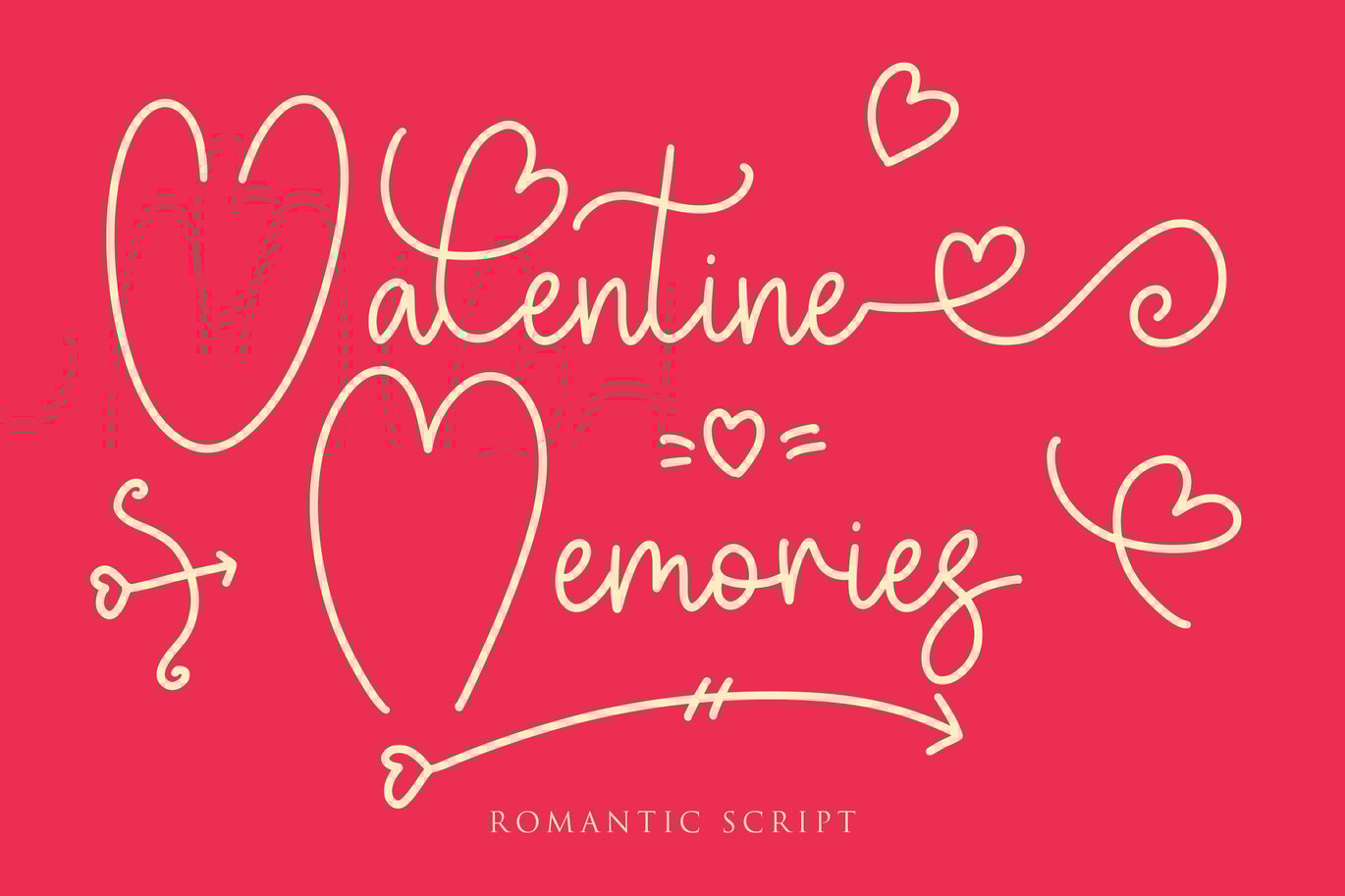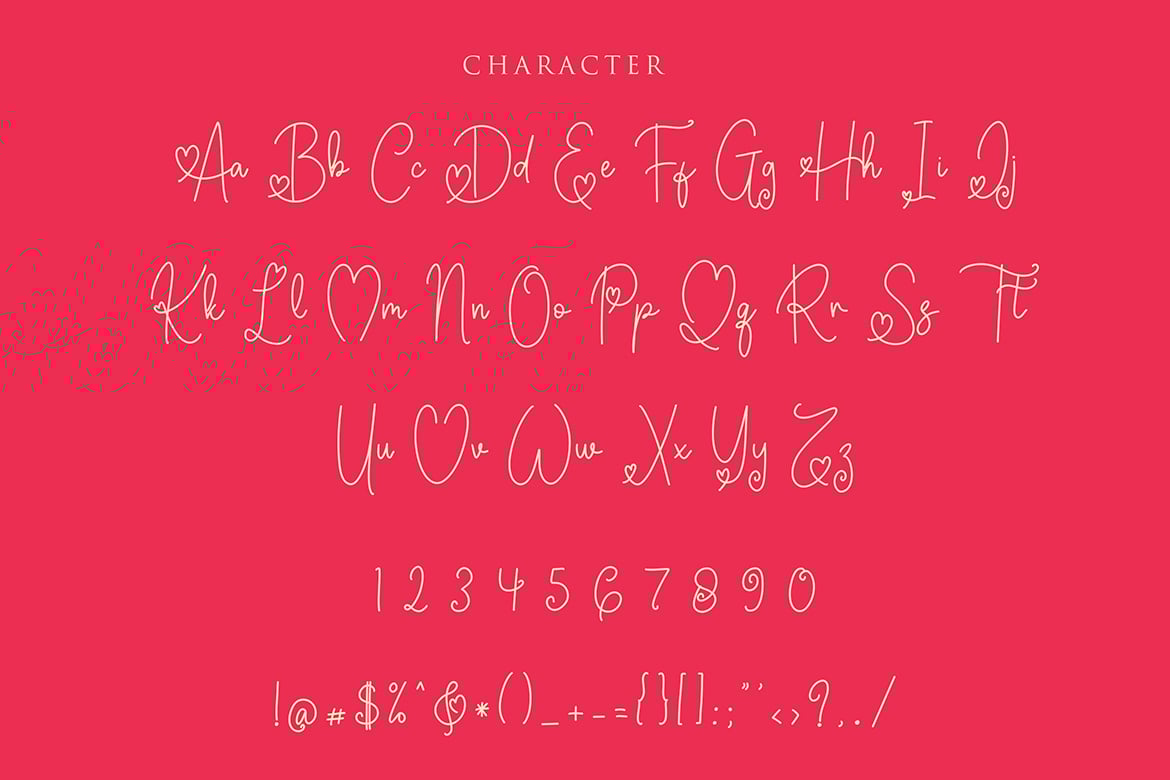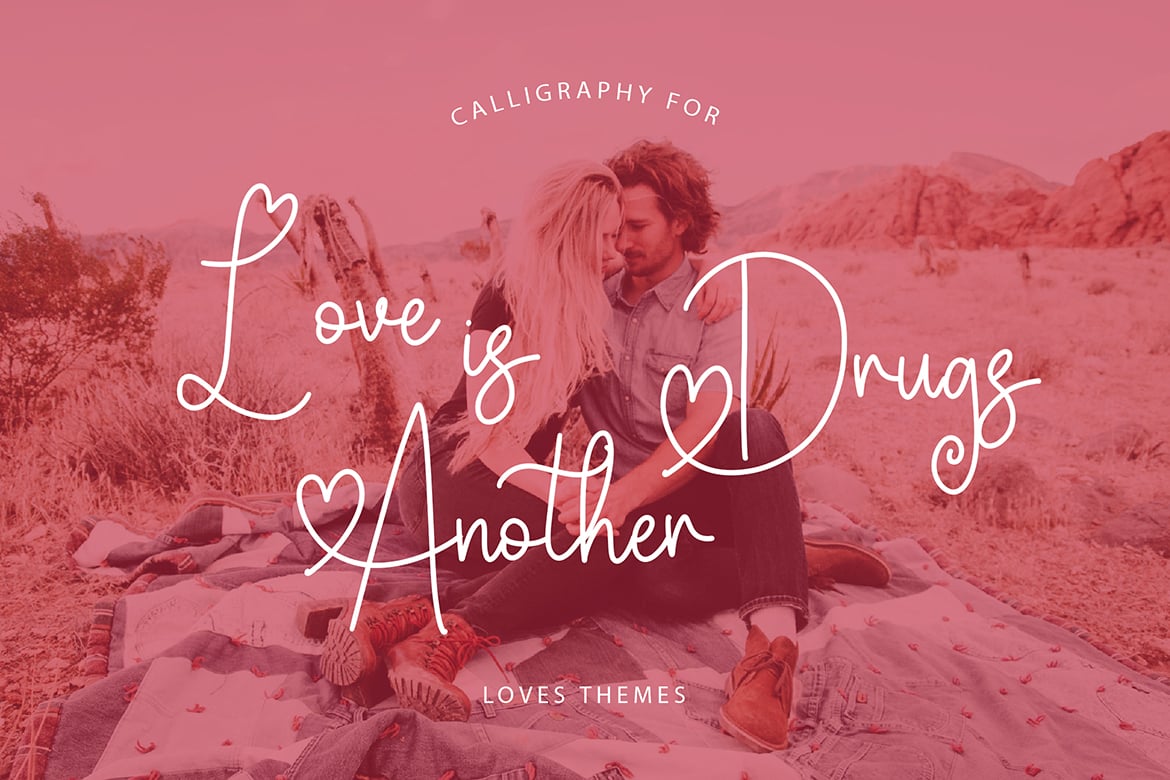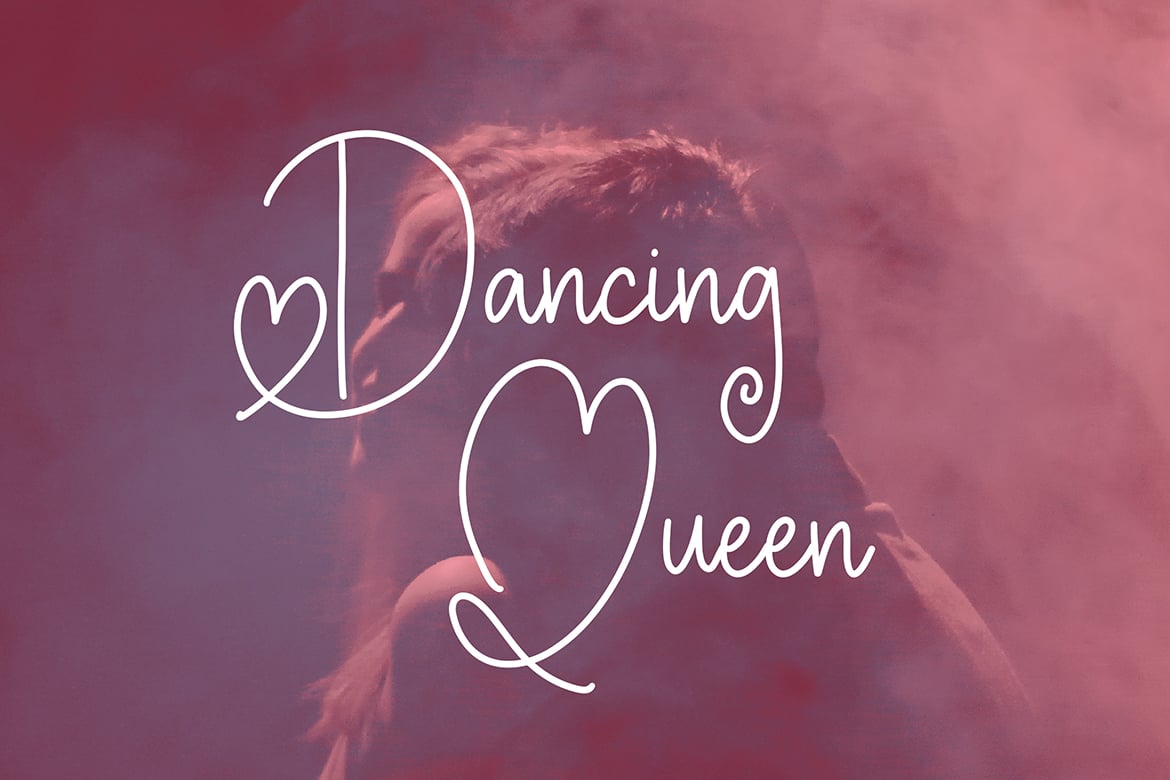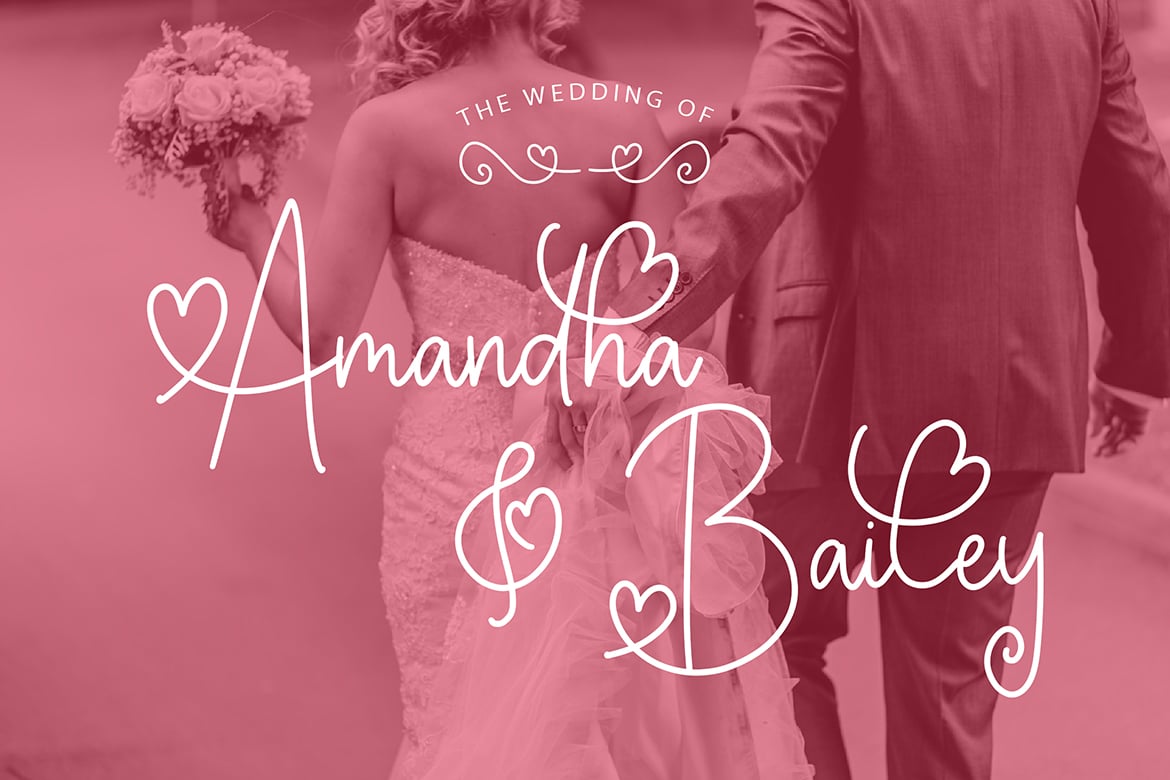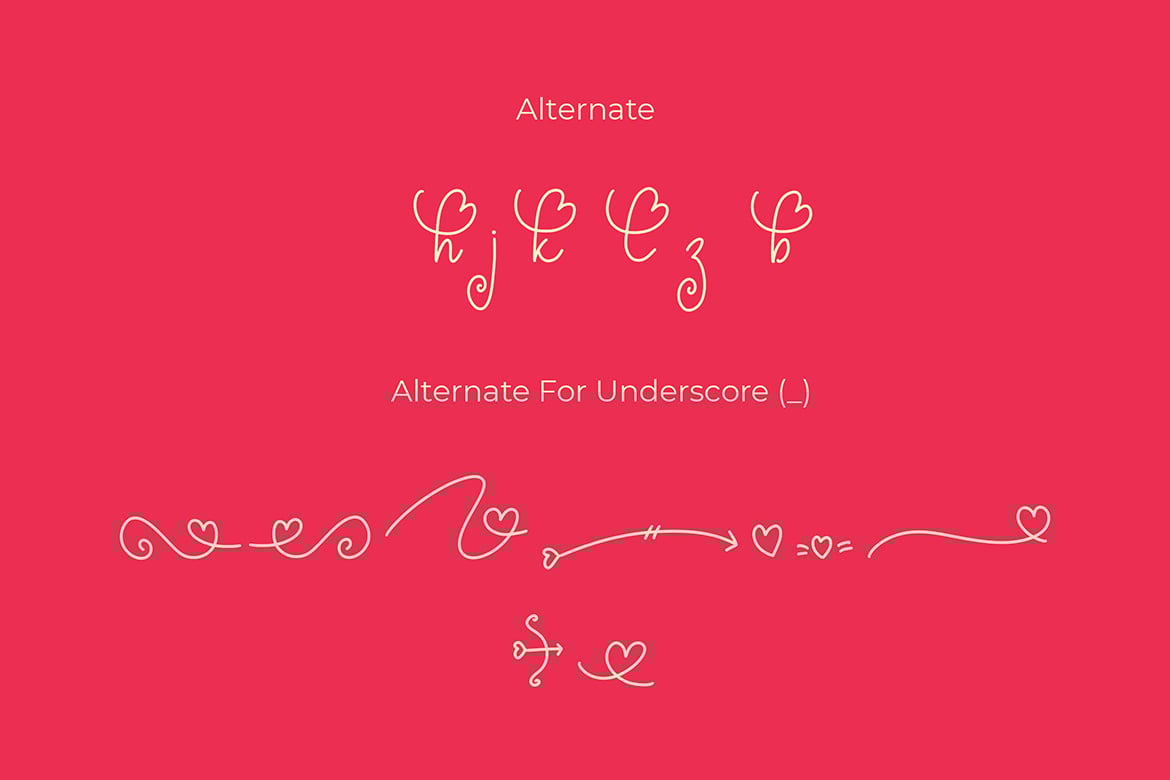
Valentine Memories Romantic Font
Valentine Memories Romantic Font with a unique alternate. This beautiful script can make your text appear elegant, luxurious, and modern!
Valentine Memories Romantic Font is perfect for branding projects, logo, wedding designs, social media posts, advertisements, product packaging, tshirt design, product designs, label, photography, watermark, invitation, stationery and any projects.